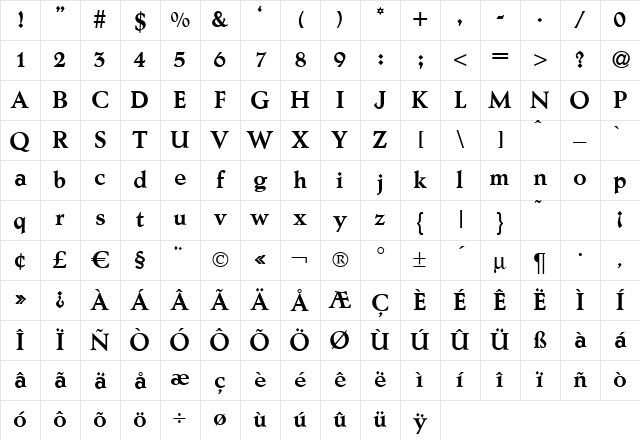
Aesop Bold
Aesop Family
Aesop Bold
Design Context for Aesop
Aesop is a composed and adaptable typeface that performs quietly and consistently across a wide range of design contexts. Its bold stroke weight gives it real presence on the page.